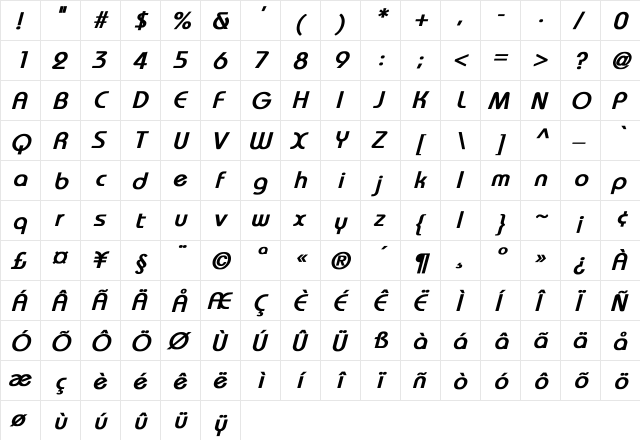
Bauhaus Bold Italic
Design Context for Bauhaus Typeface
Bauhaus takes a measured approach to typography — its balanced proportions and neutral character make it a reliable workhorse for both digital and print work. The slanted form adds forward momentum and visual energy. The heavy weight commands attention and anchors typographic hierarchies.
Pro Tip: Try Bauhaus for annotation and caption copy alongside an upright companion — the contrast in angle creates a dynamic but ordered typographic system.